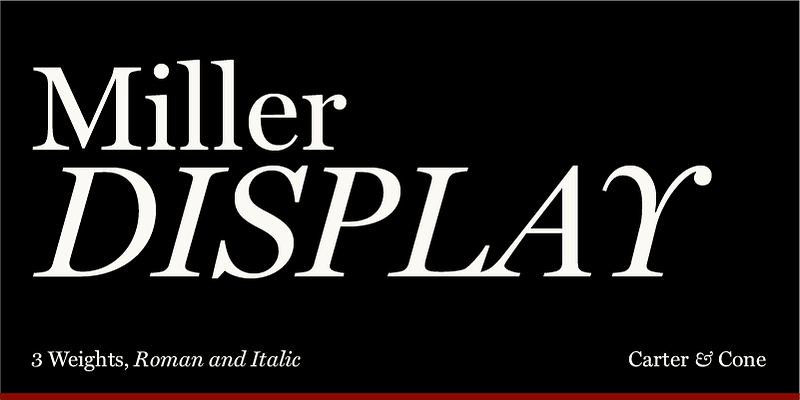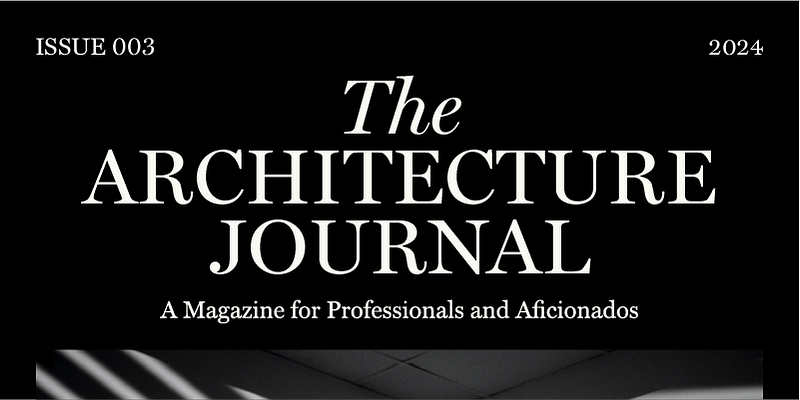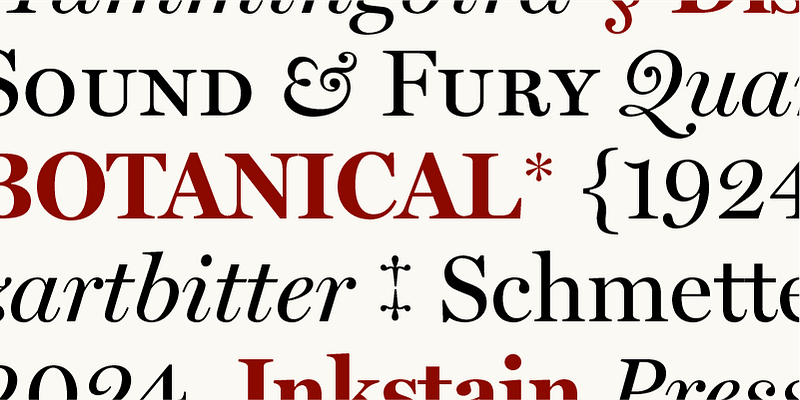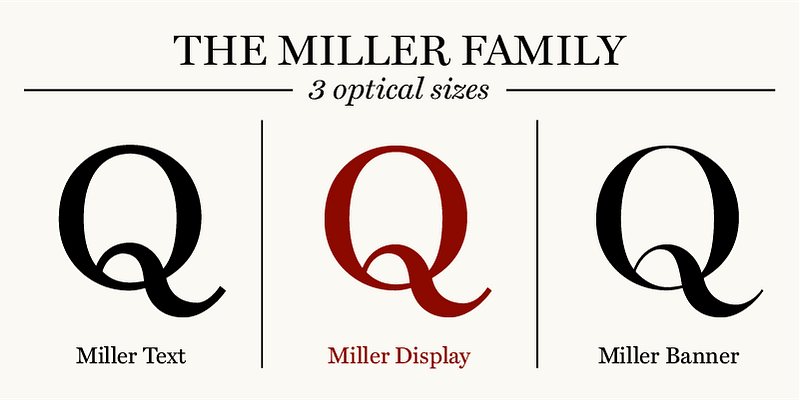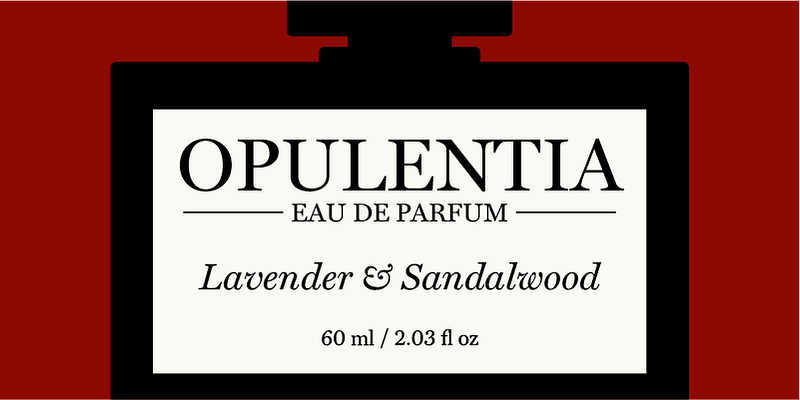
From fashion to finance and brands to books, Matthew Carter designed Miller Display with sharpened serifs and enhanced contrast to lend particular polish to headlines, decks, and pull quotes in need of something special to jump off the page or screen. The Miller family of typefaces is a seminal reinvigoration of the 19th-century Scotch Roman. This series was a team effort, with Richard Lipton, Jill Pichotta, Tobias Frere-Jones, and Cyrus Highsmith contributing at different stages.